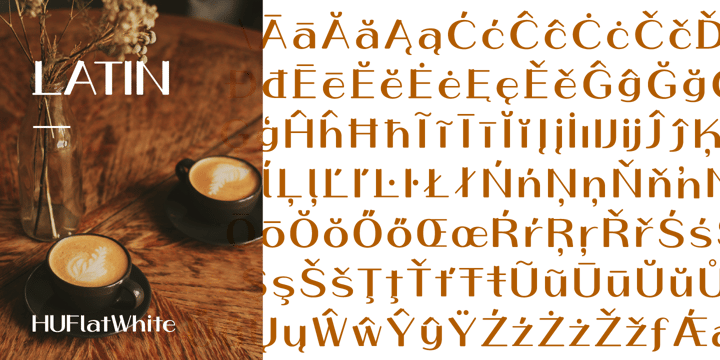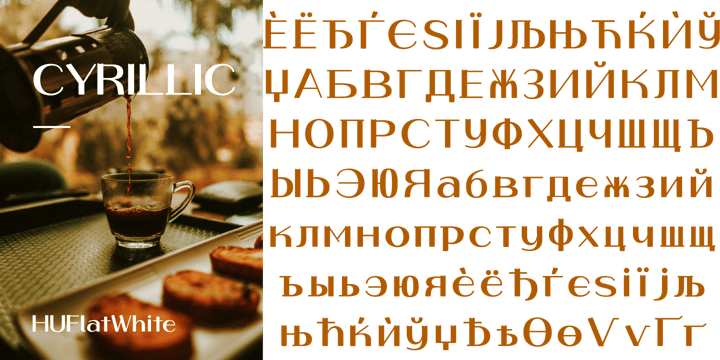
HU Flat White
HU Flat White by Heummdesign
About HU Flat White Font Family
HU Flat White is a retro vibe headline typeface.
It has a full module, but, the inner space created by large strokes' contrast gives a cool feeling.
Overall, the extended typeface with a wide width is attractive, and the shape of every alphabets' tip create a retro feel.
Designers: Rumi Kim
Publisher: Heummdesign
Foundry: Heummdesign
Design Owner: Heummdesign